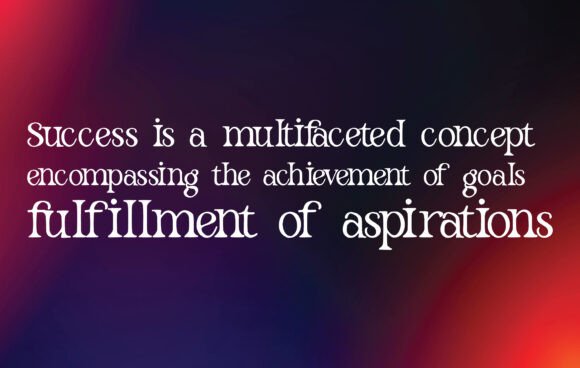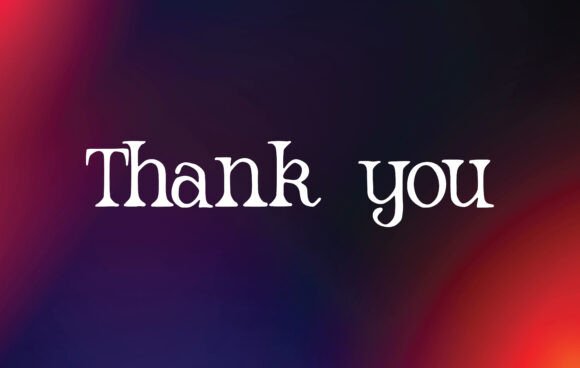
Introducing Emmett Font: Elevate Your Creative Projects with Elegance
In the world of typography, a font can make all the difference in bringing your creative visions to life. If you’re on the hunt for a typeface that combines elegance, versatility, and a personal touch, look no further than the Emmett font. This lovely and beautiful handwritten font has the potential to take your creative ideas to the highest level, making it an indispensable tool for designers, crafters, and anyone looking to add a touch of sophistication to their projects.
The Beauty of Emmett Font
Emmett font stands out in the realm of handwritten fonts due to its unique blend of elegance and approachability. Its fluid strokes and carefully crafted letters exude a sense of warmth and personality, making it perfect for projects that demand a human touch. Whether you’re creating eye-catching logos, developing a brand identity, or designing inspirational quotes, Emmett provides the perfect balance of beauty and readability.
Why Choose Emmett Font?
So, what makes Emmett font the best choice for your creative endeavors? Here are a few reasons why designers and crafters are falling in love with this stunning typeface:
- Elegance and Versatility: Emmett’s sophisticated design makes it suitable for a wide range of projects, from luxury branding to heartfelt quotes. Its elegance ensures that your work stands out, while its versatility allows you to experiment with different creative ideas.
- Eye-Catching Logos: In a crowded marketplace, a memorable logo is crucial. Emmett font helps you create logos that are not only visually appealing but also convey the essence of your brand. Its unique character ensures that your logo will be noticed and remembered.
- Branding and Consistency: For brands looking to establish a strong identity, Emmett offers a consistent and recognizable aesthetic. Its beautiful handwritten style can be used across various platforms, from business cards to website headers, ensuring a cohesive brand image.
- Perfect for Quotes and Sayings: For crafters and designers who specialize in creating inspirational content, Emmett font adds a touch of grace and emotion to quotes and sayings. Its readability and elegance make it ideal for sharing meaningful messages.
Tips for Using Emmett Font Effectively
To maximize the potential of Emmett font in your projects, consider the following tips:
- Pair with Complementary Fonts: For maximum impact, pair Emmett with fonts that complement its elegance. A sans-serif font for body text or a bold serif font for headings can create a striking contrast.
- Experiment with Colors: Emmett’s versatility extends to its color palette. Experiment with different colors to find the perfect match for your project. Soft pastels, rich tones, or classic black and white can enhance the font’s beauty.
- Pay Attention to Spacing: The beauty of handwritten fonts like Emmett lies in their organic feel. Ensure that your text has adequate spacing to maintain readability and to highlight the unique characteristics of each letter.
Emmett font is more than just a typeface; it’s a tool that can elevate your creative projects to new heights. Its elegance, versatility, and personal touch make it the perfect choice for designers and crafters looking to add a sophisticated and unique element to their work. Whether you’re creating logos, branding materials, or inspirational quotes, Emmett font is sure to bring your creative visions to life.